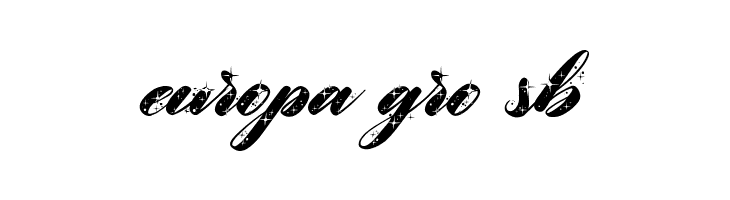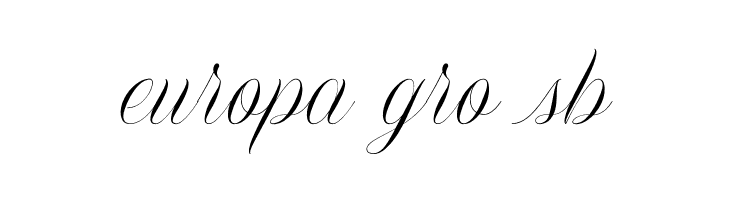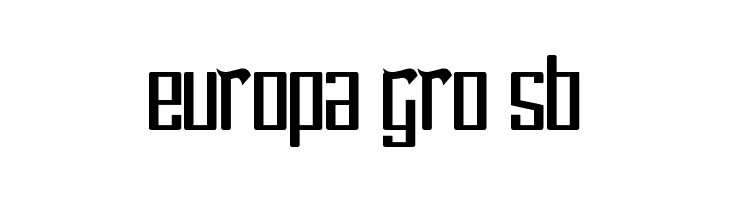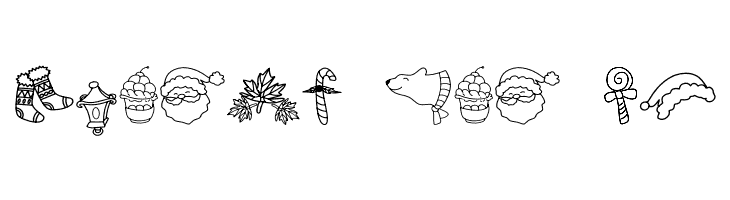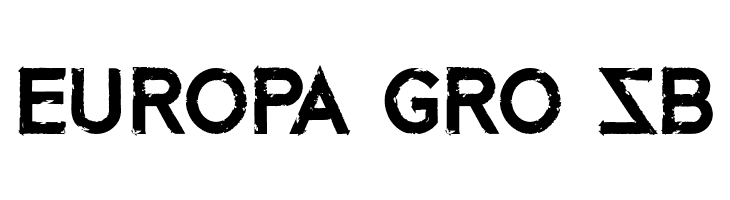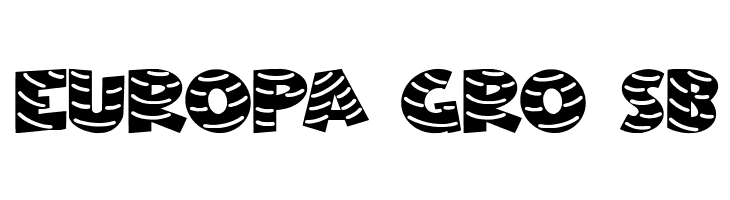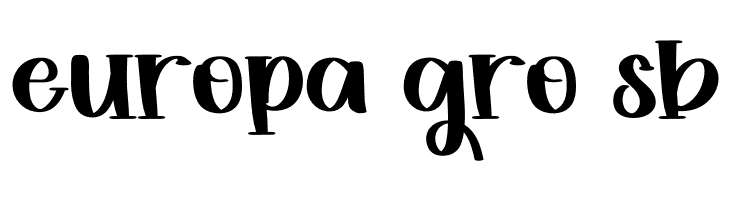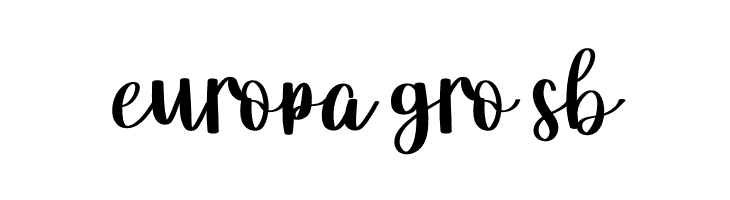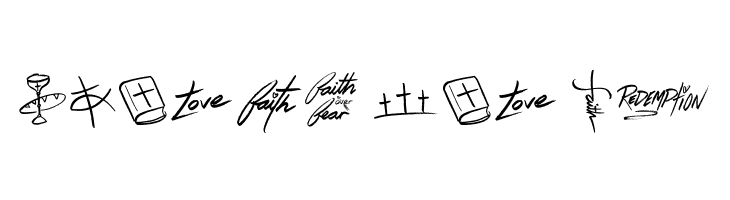
A festive, decorative script font with sparkling accents and elegant flourishes.
An elegant script font with flowing, interconnected letters and classic calligraphic style.
A bold, angular font with a futuristic and geometric style.
Hand-drawn Christmas doodle icon set.
A bold, italic font with sharp, angular lines and a futuristic style.
A bold, distressed font with a futuristic and edgy design.
A bold, candy-striped decorative font perfect for festive designs.
A playful and festive font with bold, curvaceous letters perfect for holiday themes.
A festive, elegant cursive font with bold, sweeping strokes and decorative flourishes.
A collection of Christian-themed designs with handwritten and decorative elements.